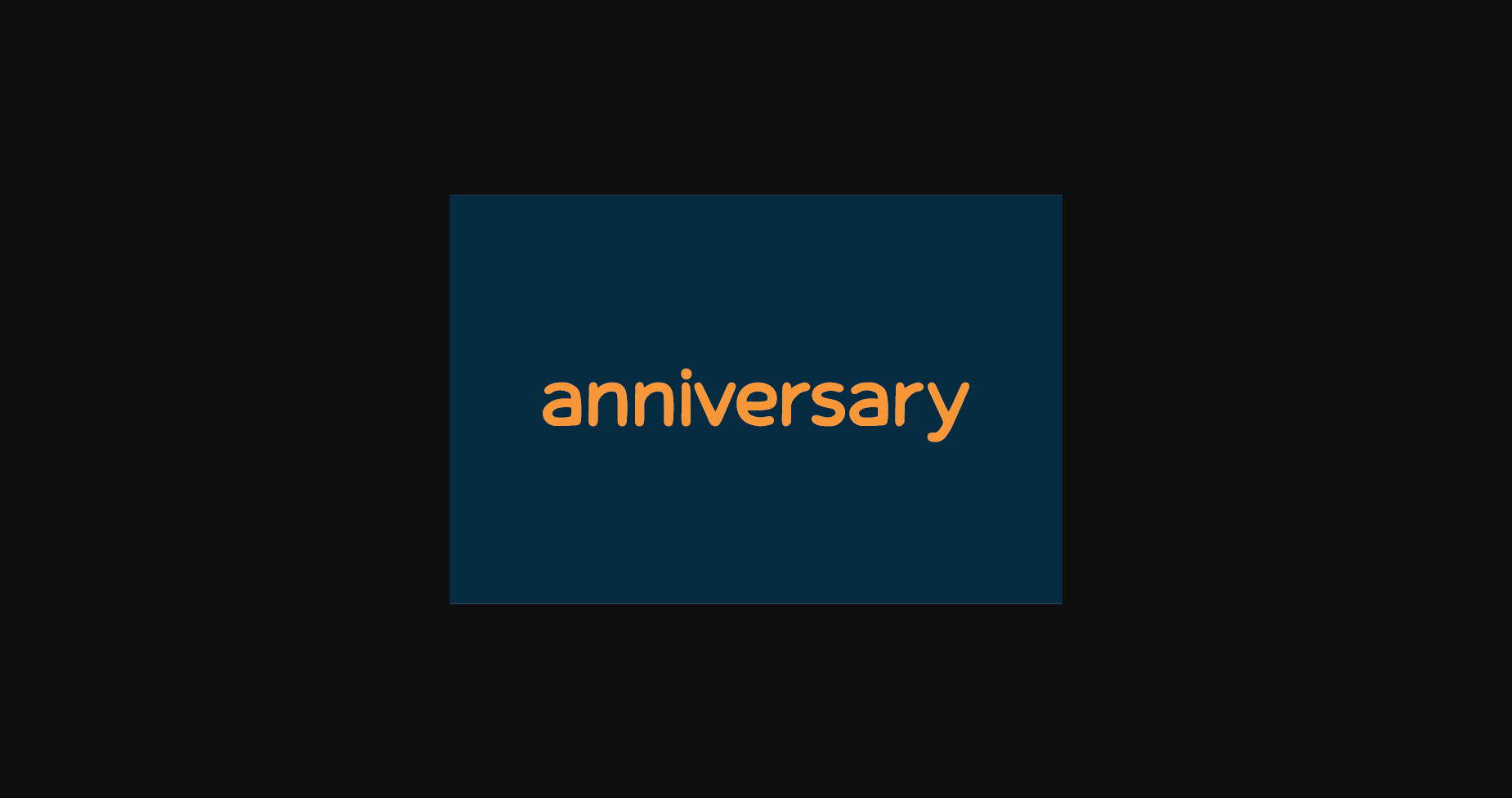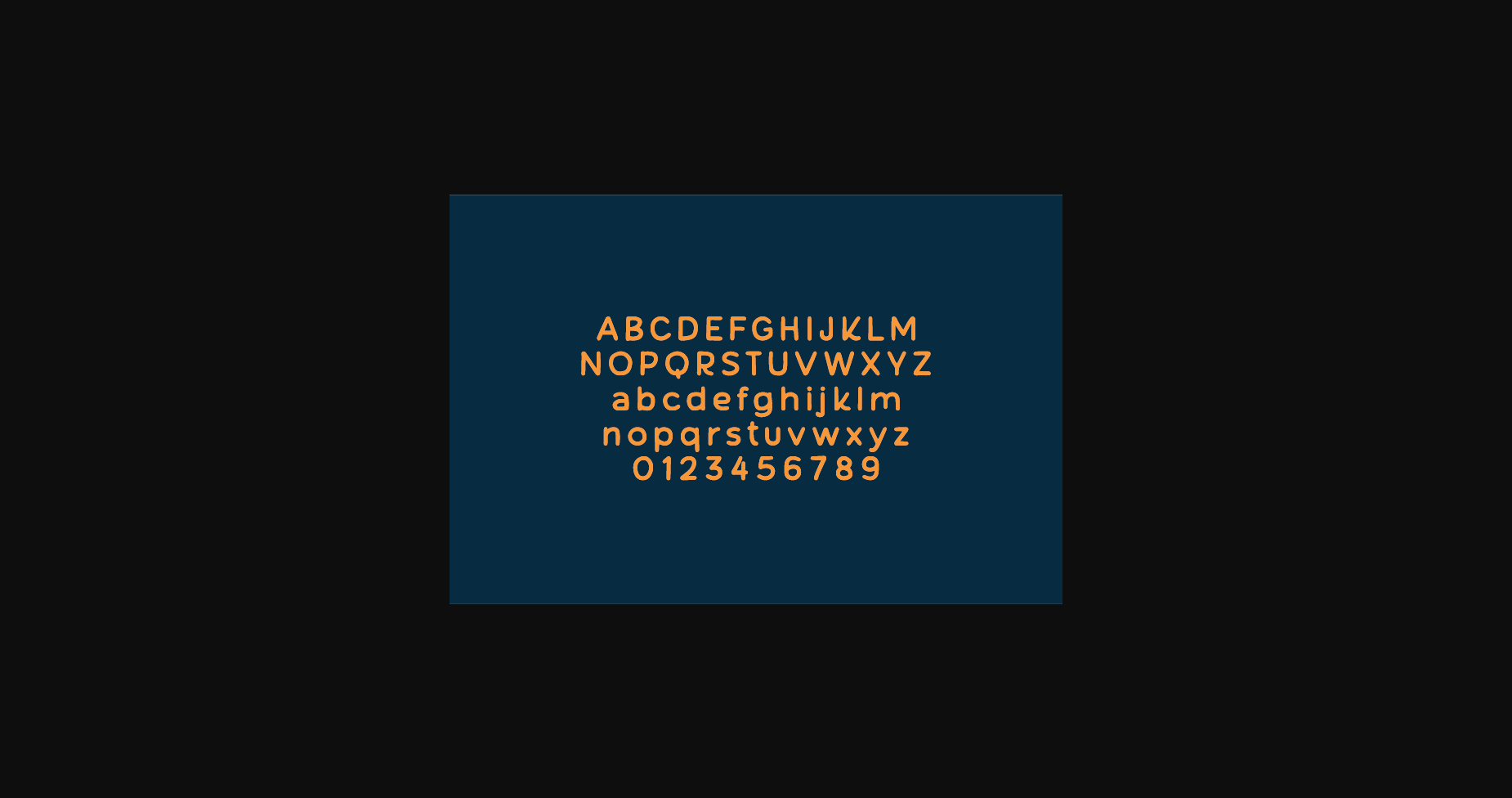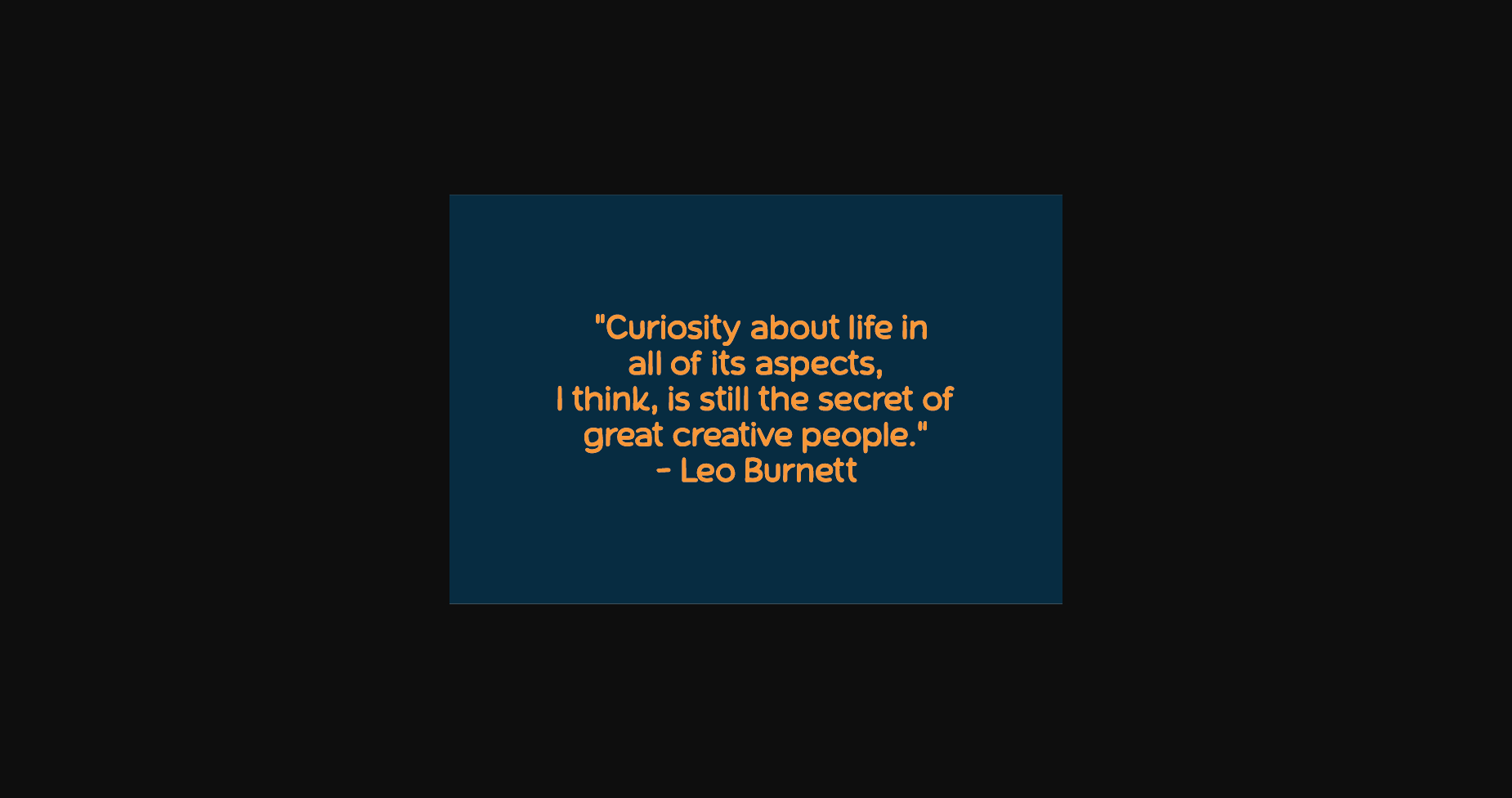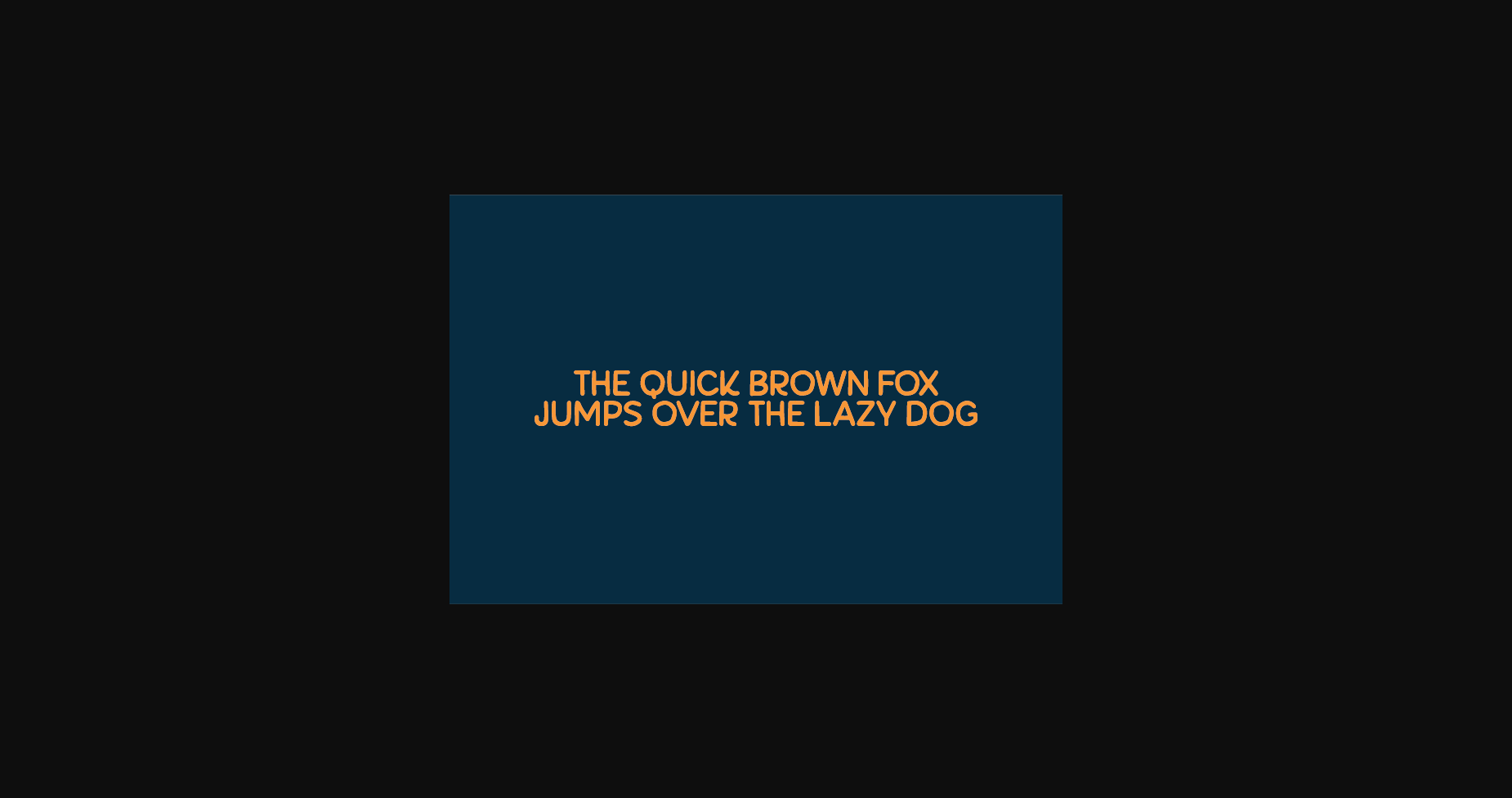
HomeSans Serif FontsAnniversary Font Sans Serif Fonts Anniversary Font FacebookXPinterestWhatsApp 1 of 6 ... Anniversary Font Poster 2... Anniversary Font Poster 3... Anniversary Font Poster 4... Anniversary Font Poster 5... Anniversary Font Poster 6... About Anniversary Font Anniversary is a natural sans serif font made without changing a single node in each character’s indentation- this makes this font very interesting and unique. Perfect for quotes, notes, tees, and any product design. DOWNLOAD NOW People also explored Spring Morning Font Alfa Scrip Font Ontime Font Harry Sunday Font Hadasah Font Rue Font Chocolate Shop Font Stare-tic Font Happy Birthday Font 368 0 TagsAnniversary Font Previous articlePersonalized FontNext articleCazon Font LEAVE A REPLY Cancel reply Comment: Please enter your comment! Name:* Please enter your name here Email:* You have entered an incorrect email address! Please enter your email address here Website: Save my name, email, and website in this browser for the next time I comment. Personal Use Free Term Free Personal Use Free Read more about this font Waturaden Personal Use Free Read more about this font Fribash Personal Use Free Read more about this font Omira Personal Use Free Read more about this font BLOG Free Fonts Risk: Why Free Fonts Can Be Dangerous for Designers Free Fonts Risk: Why Free Fonts Can Be Dangerous for Designers Using free fonts is a common practice in web and graphic design. However, the... Best Fonts for YouTube Videos: Make Your Thumbnails Stand Out Free vs Paid Fonts: Why Investing in Premium Fonts Is Worth It Where to Buy American Fonts Online in 2024